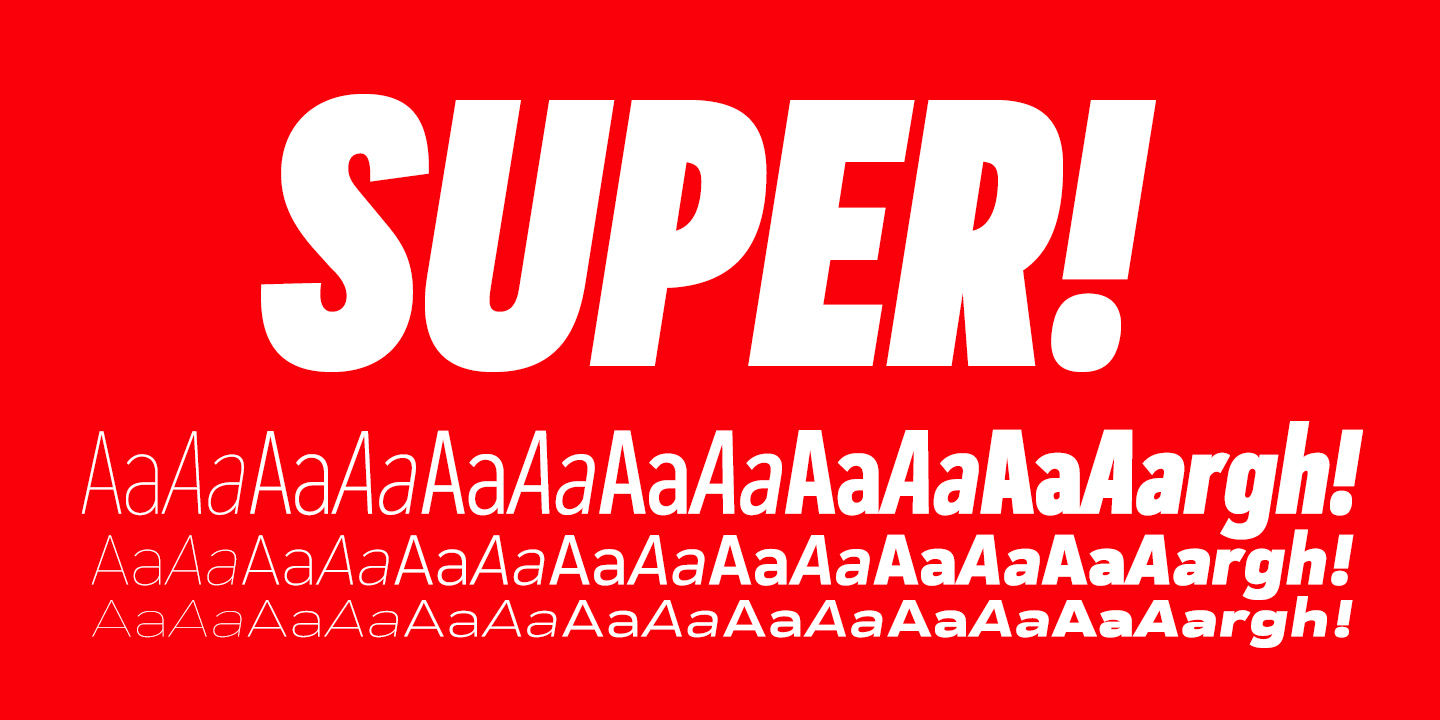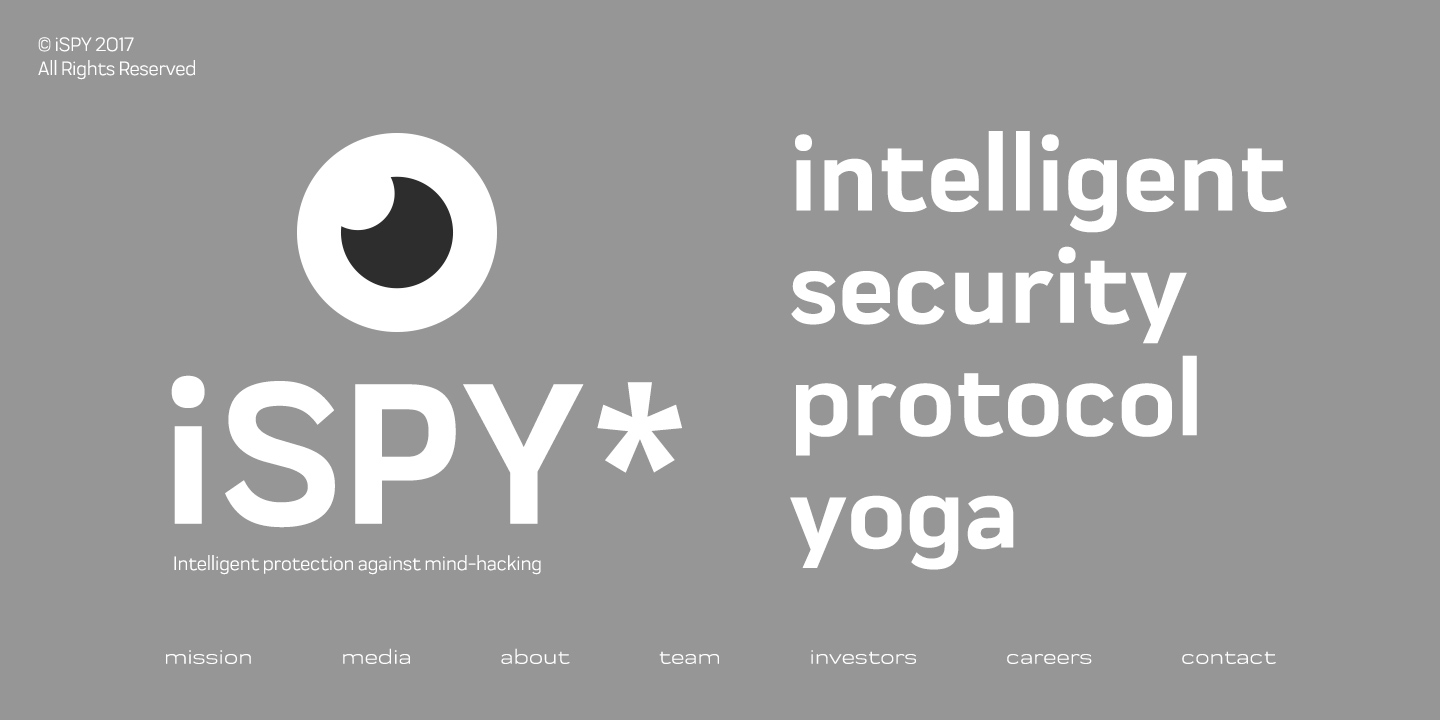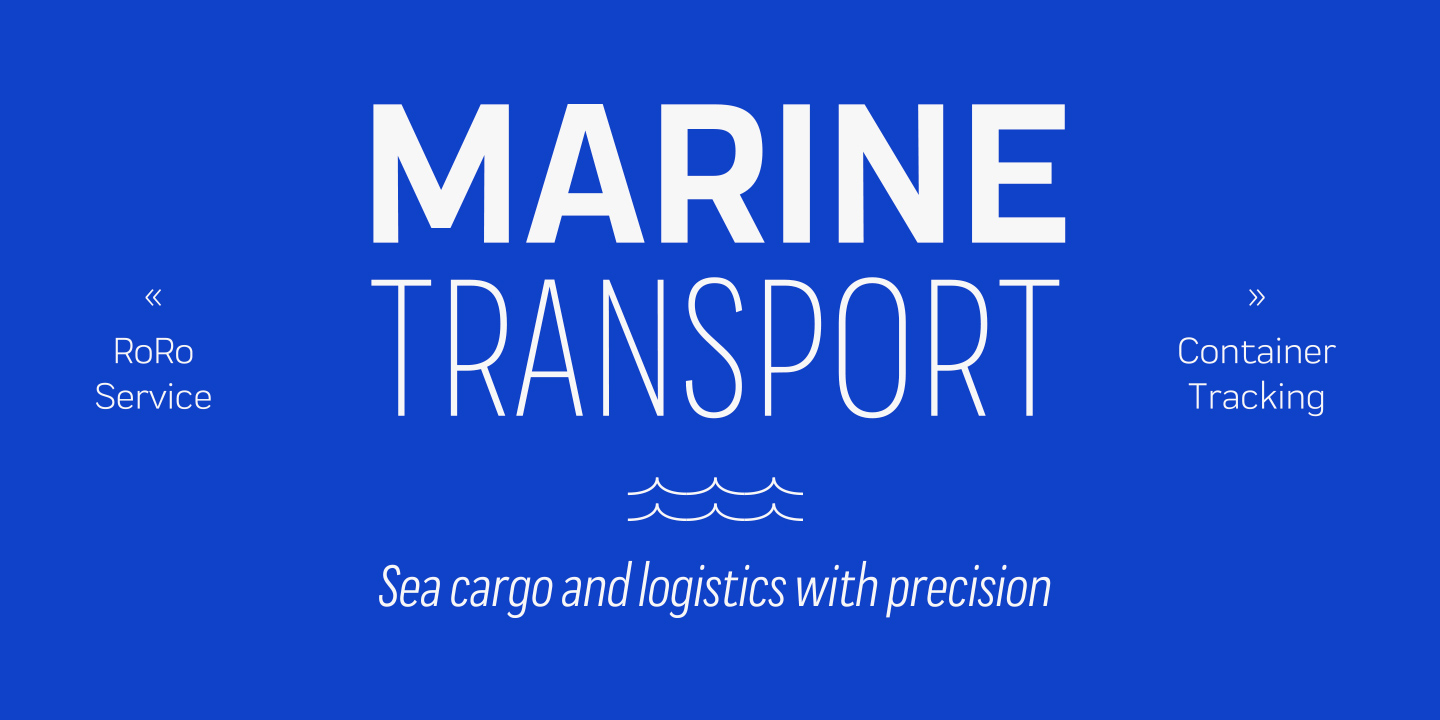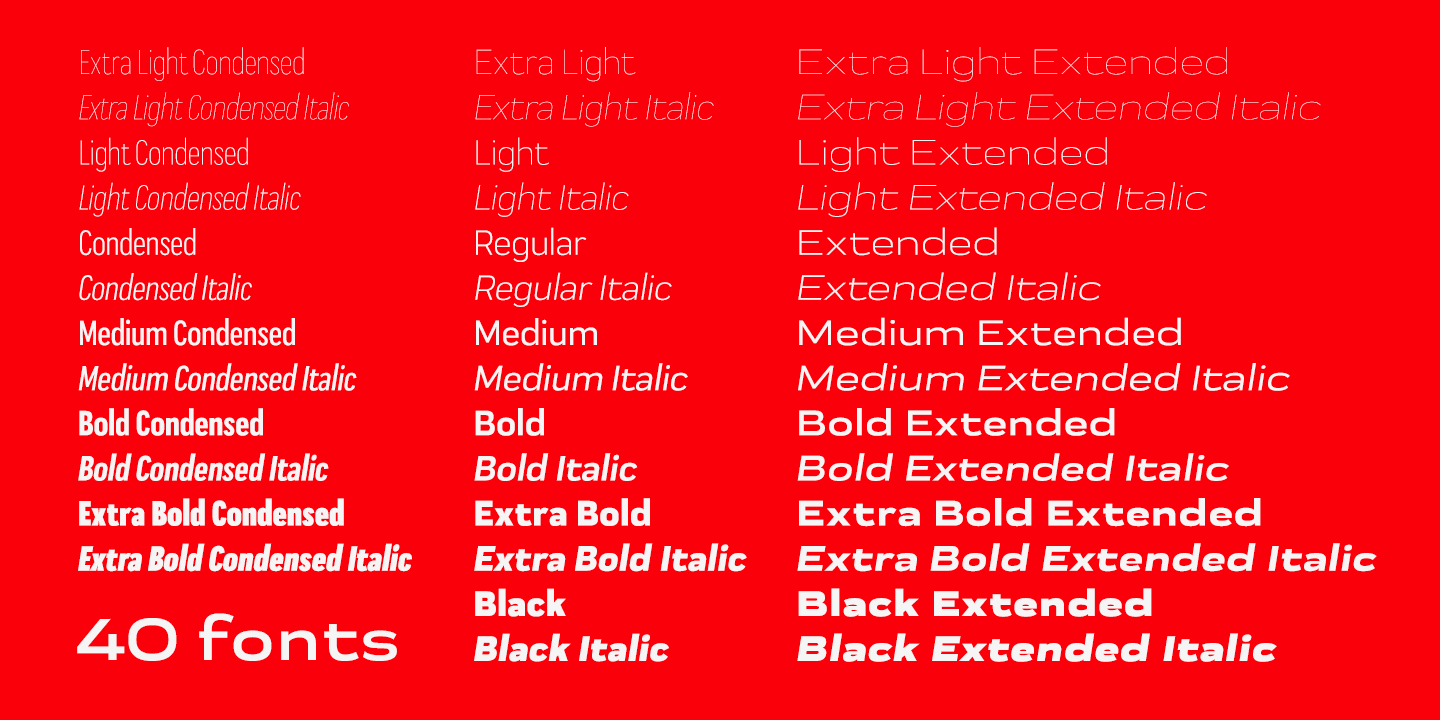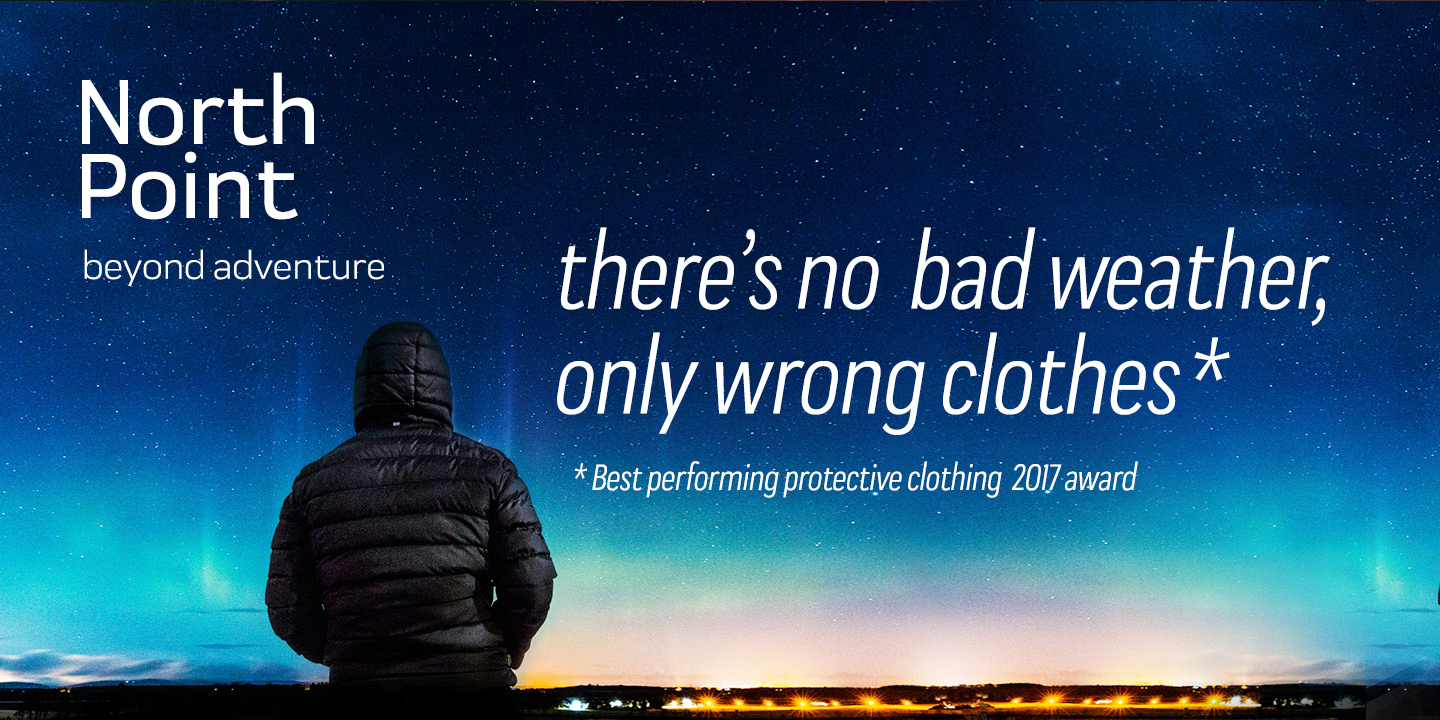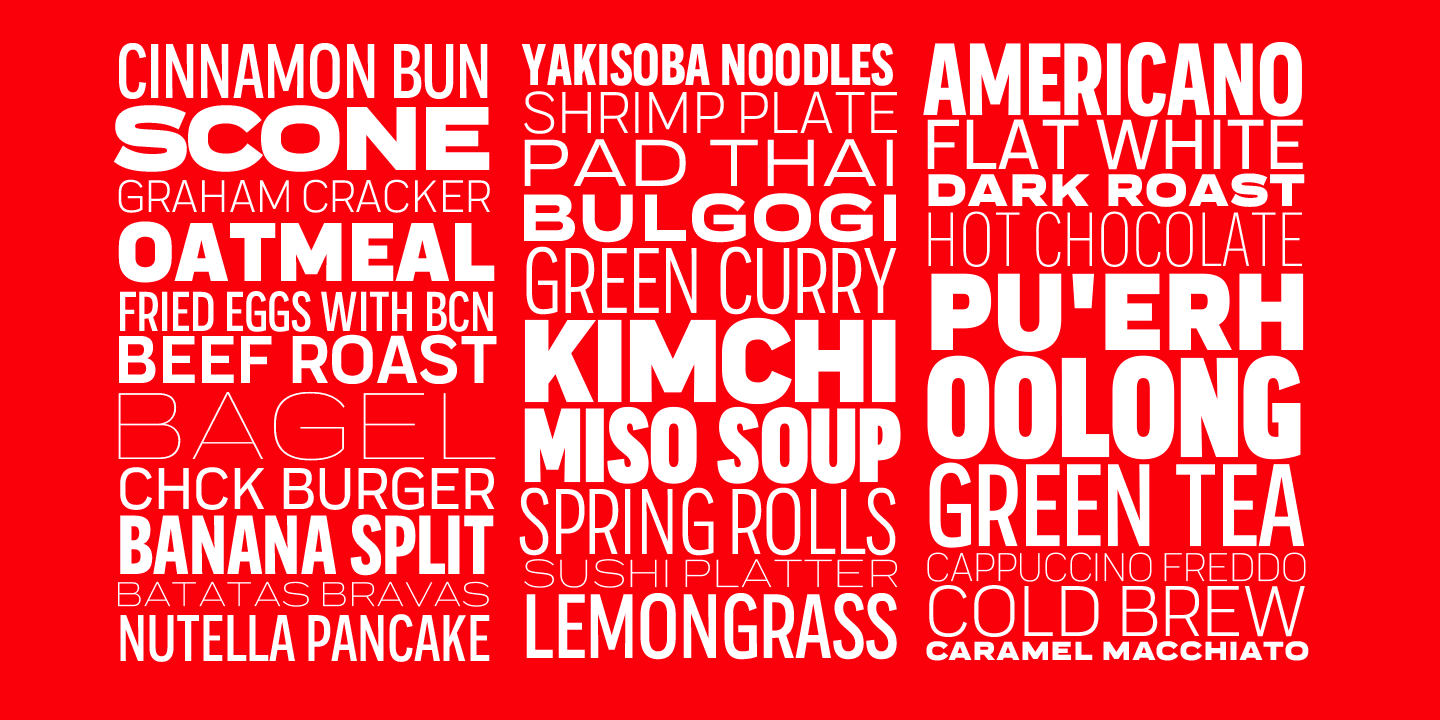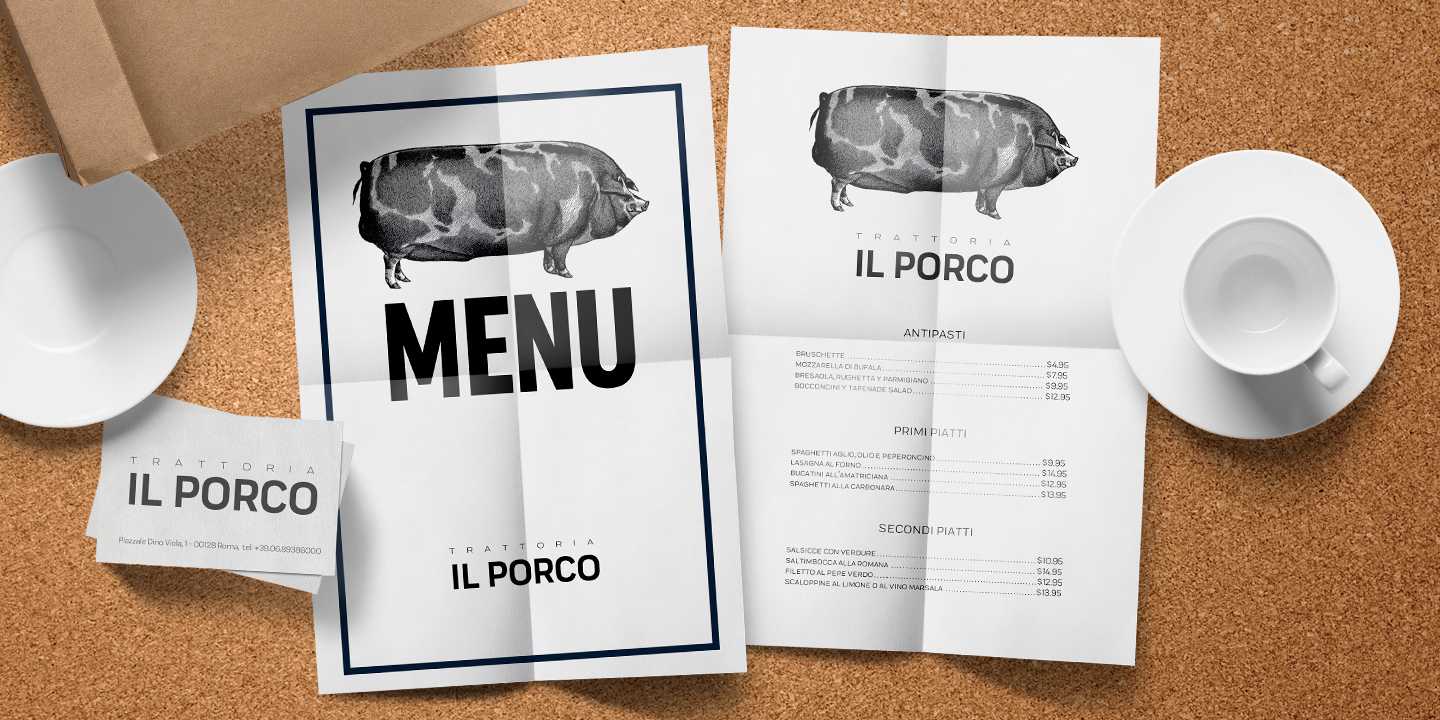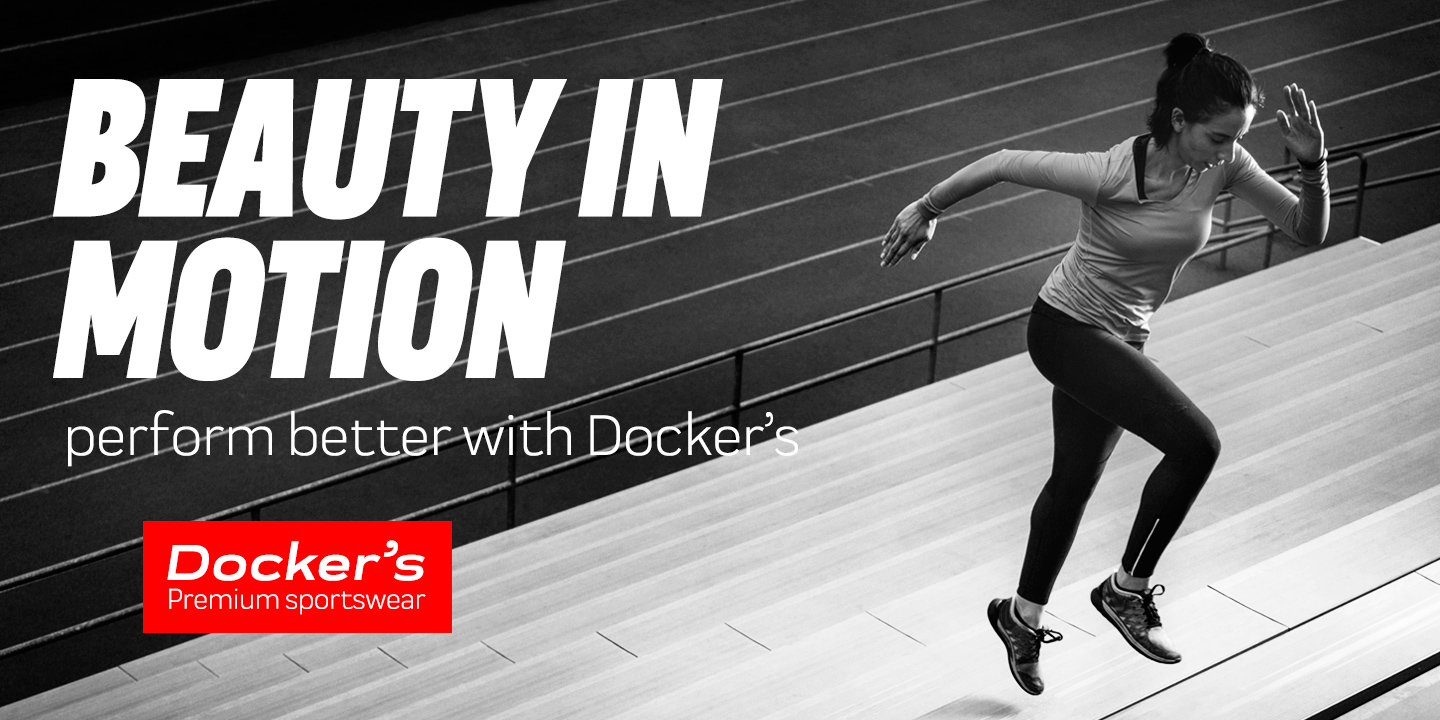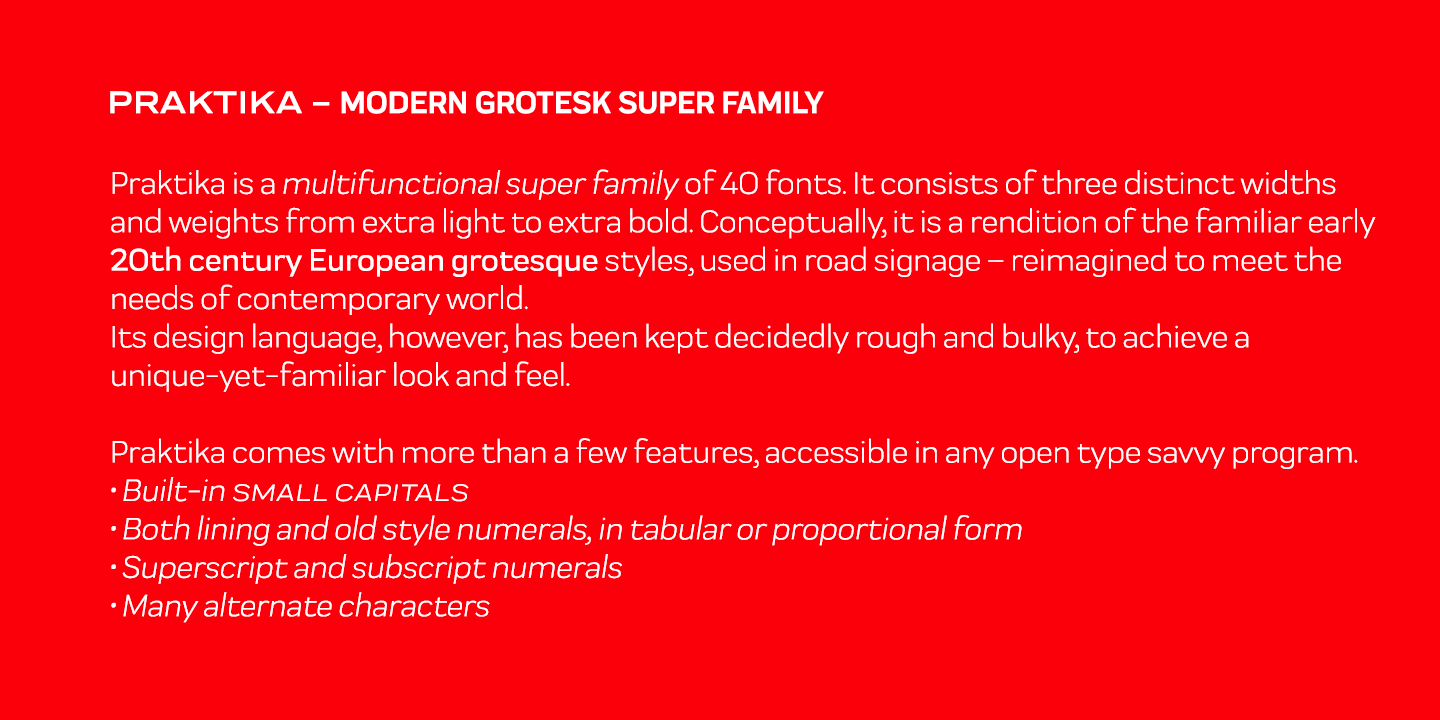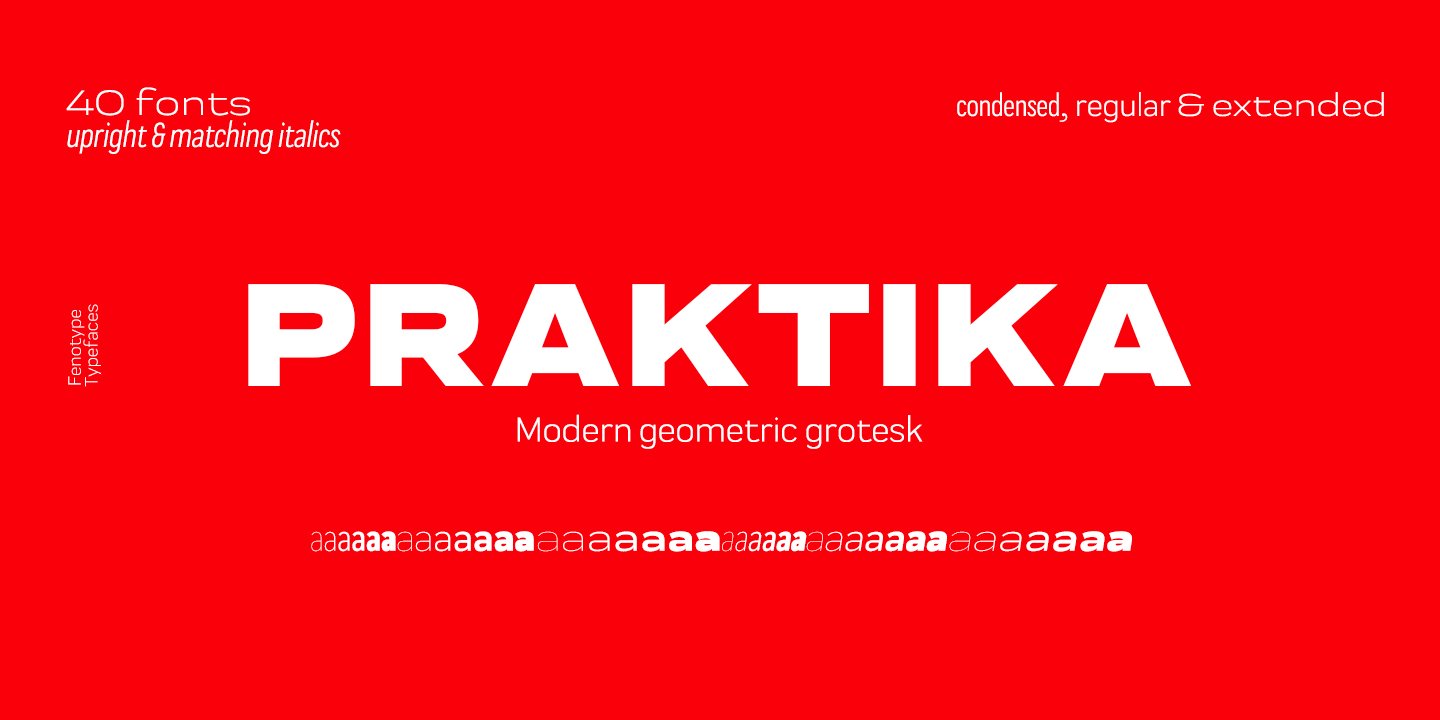
Praktika Complete Family (40 fonts)
Its design language, however, has been kept decidedly rough and bulky, to achieve a unique-yet-familiar look and feel.
Praktika comes with more than a few features, accessible in any open type savvy program.
Built-in small capitals
Both lining and old style numerals, in tabular or proportional form
Superscript and subscript numerals
Many alternate characters